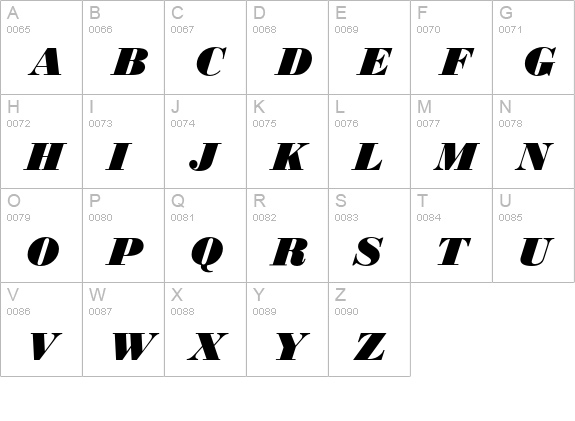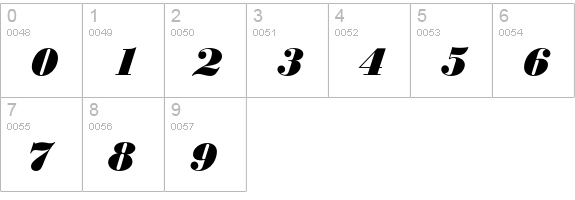
BodoniNo1EF-BlackItalic Font Details
The BodoniNo1EF-BlackItalic font exudes elegance and sophistication with its bold and slanted design. This striking typeface commands attention and is perfect for creating a sense of luxury and refinement in your projects. The sleek and stylish curves of the letters make a powerful statement, while the italicized form adds a touch of flair and drama. What's even better is that this exquisite font is available for free download at FontsMarket.com. Whether you're looking to elevate your branding, design stunning invitations, or add a touch of class to your website, the BodoniNo1EF-BlackItalic font is a versatile choice that will make your text stand out. Don't miss the opportunity to enhance your projects with this premium font at no cost.